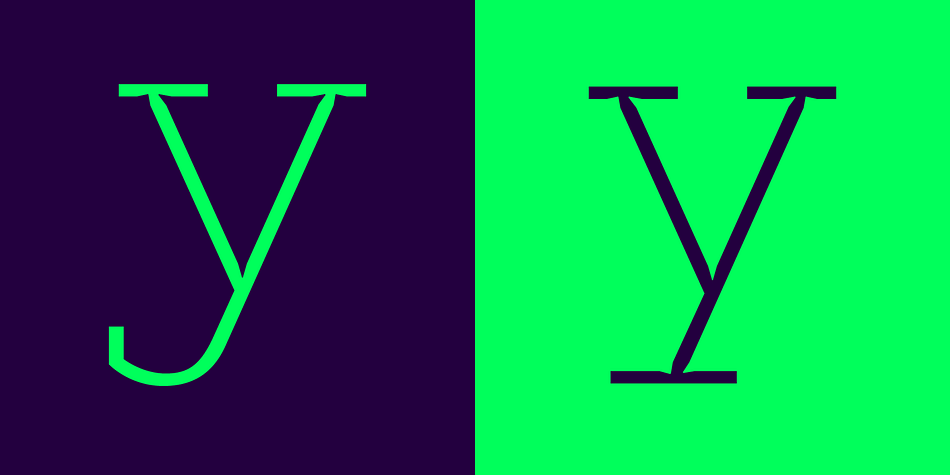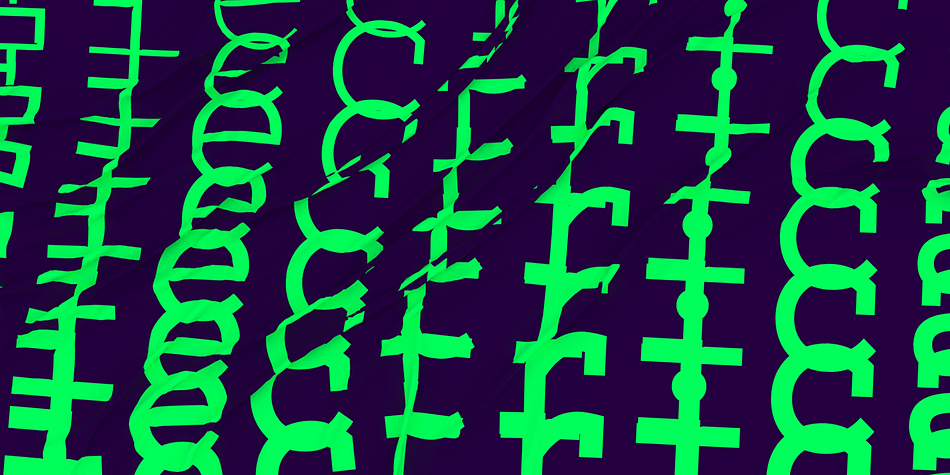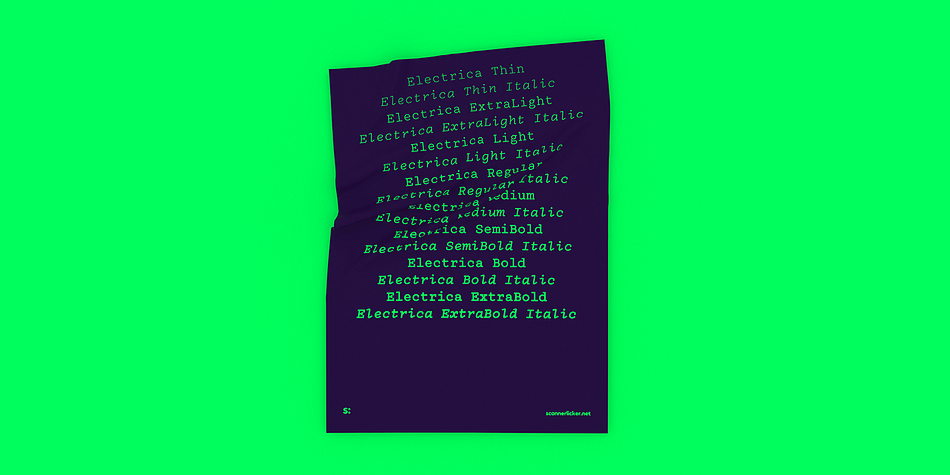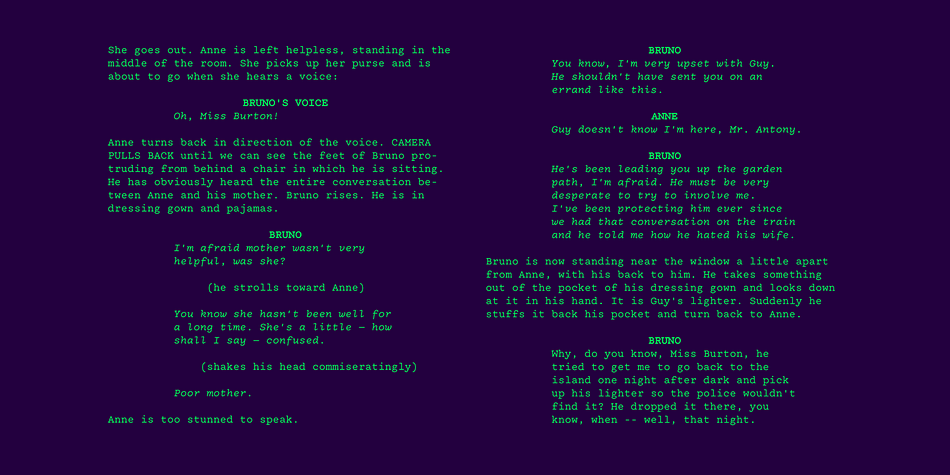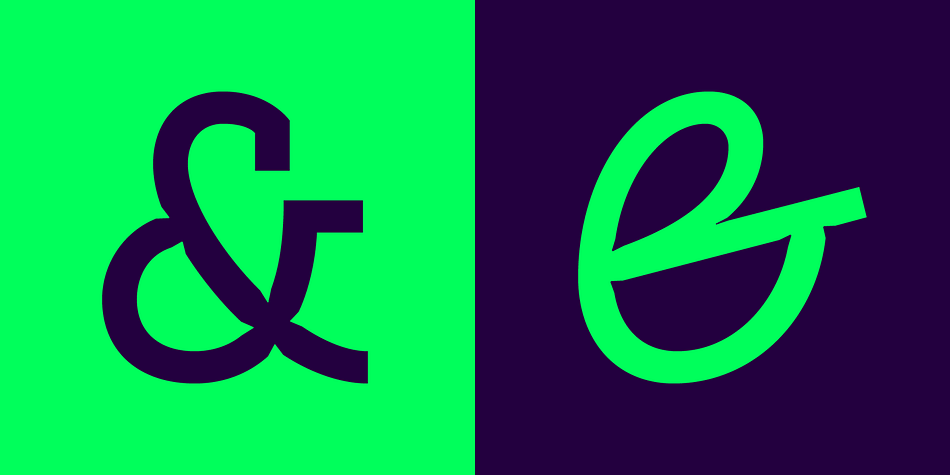
Designed by Fábio Martins, Electrica is a serif and typewriter font family. This typeface has sixteen styles and was published by Scannerlicker.
Electrica is a contemporary monospaced typeface family; a tribute to classic typewriters, while designed for today’s needs and media.
In spite of taking inspirations from several typefaces used in typewriters (most notably the IBM Selectric), Electrica is far from a revival: it’s a typeface on its own, winking to the past while standing its ground confidently in a contemporary environment.